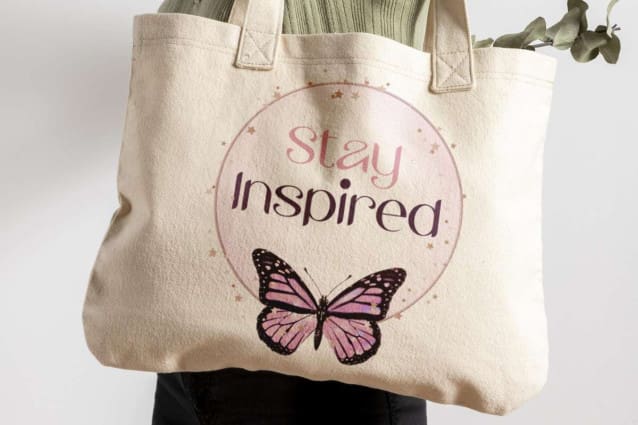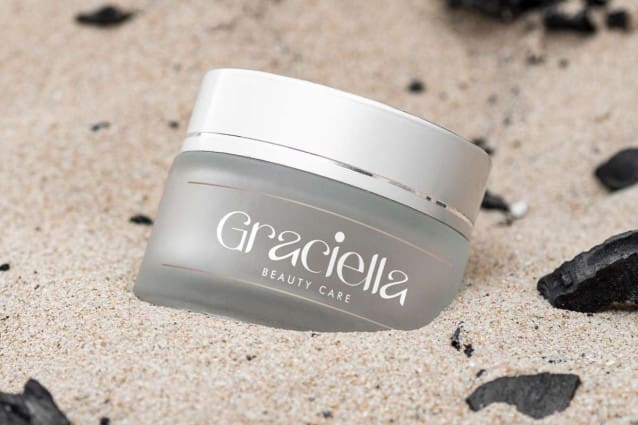
Moana Rainy Font
Moana Rainy Font is a uniquely stylish and modern sans serif display font, created by VinType Studio. This font has an unusual line flow that can add uniqueness to any design you create. It will be suitable for many industries, such as fashion, beauty product, event or wedding organizer, custom design, publishing, printing, homeware, café, etc.
Moana Rainy Font includes full set of one font size for Basic Character, Numerals and Punctuation. Also equipped with ligature character to add the beauty of the designs you create, such as business card, signage, menu, invitation, product packaging, poster, catalog, web page, quote, and more!